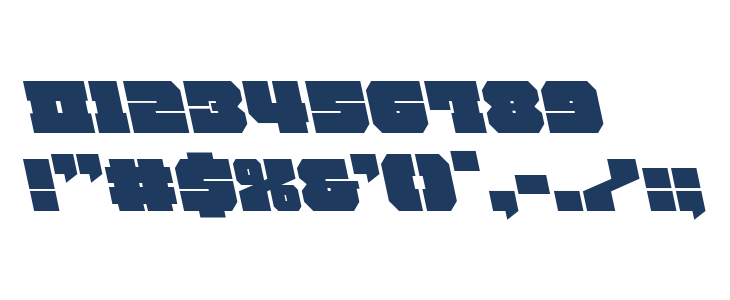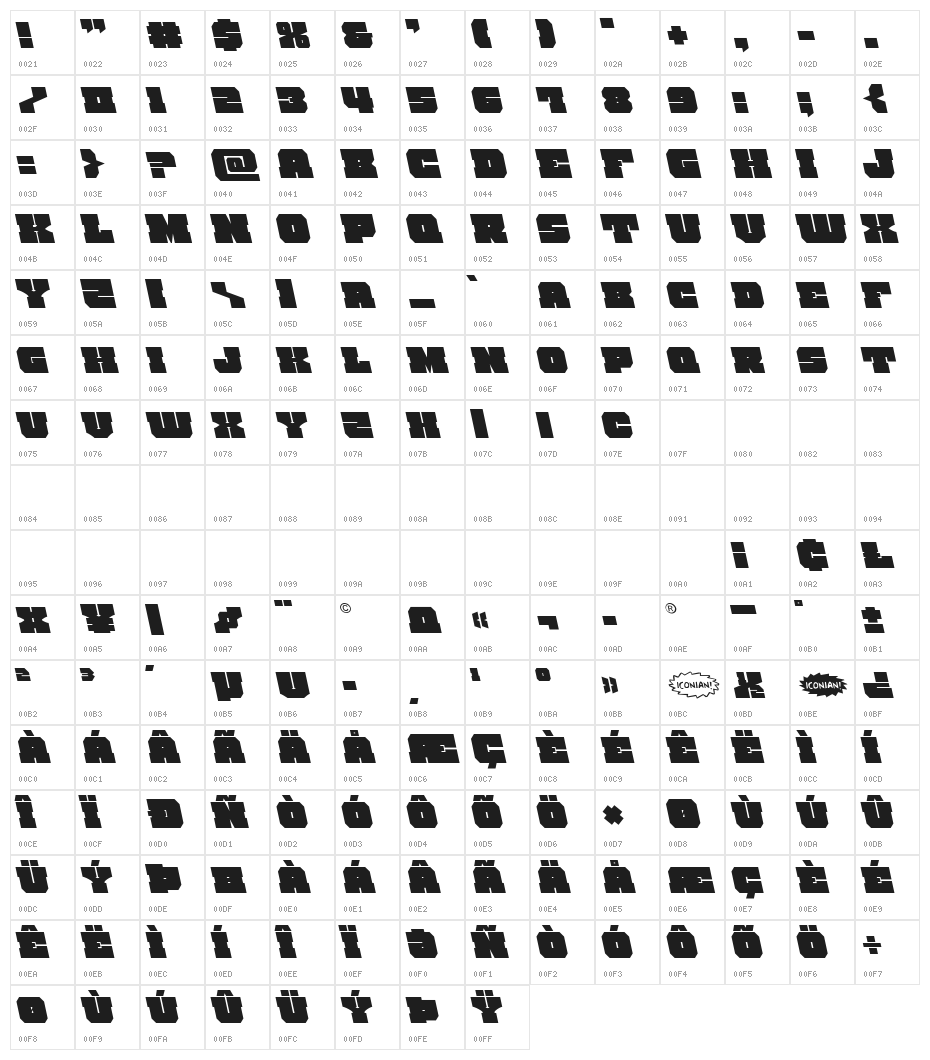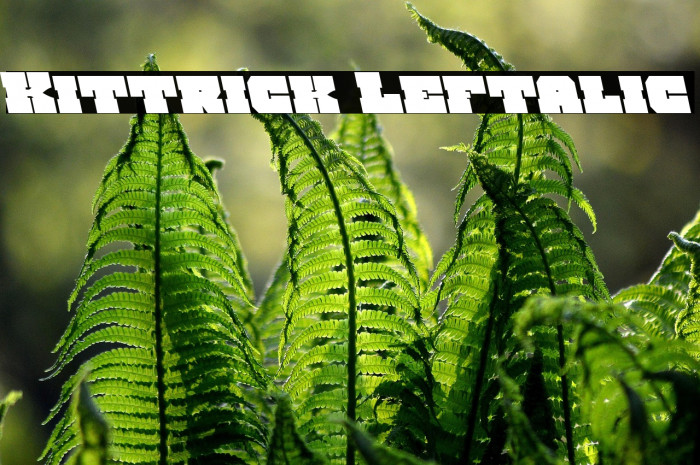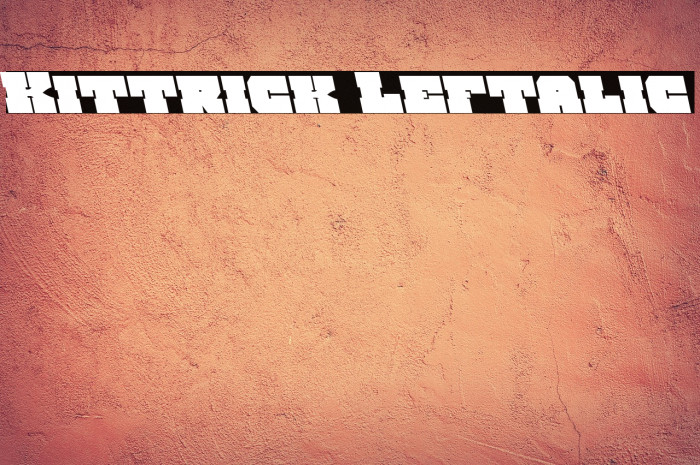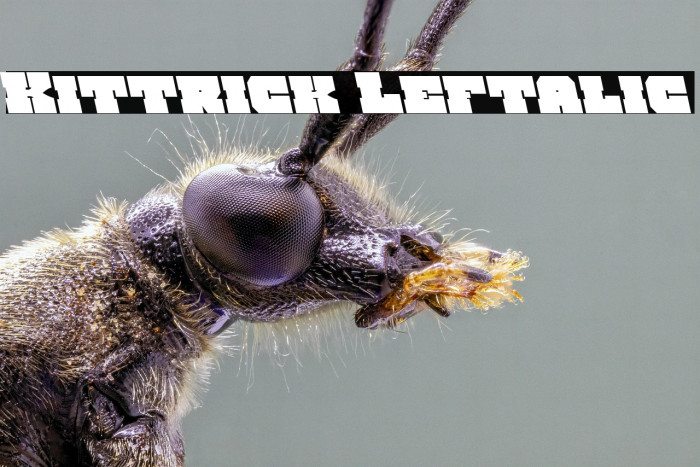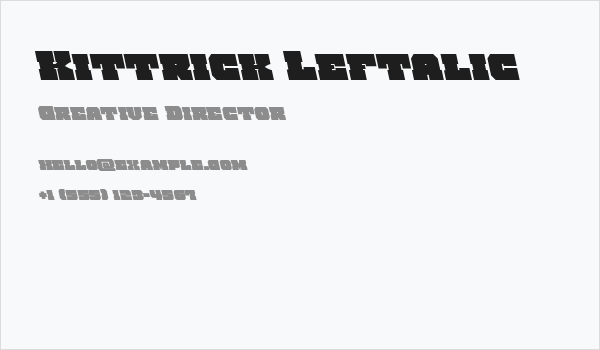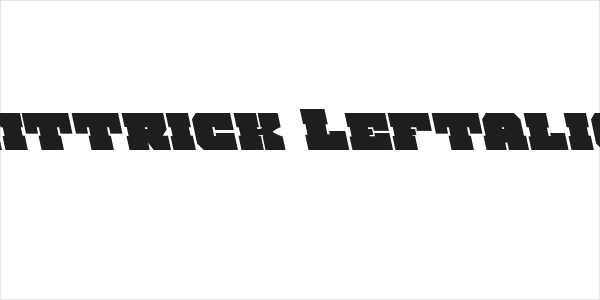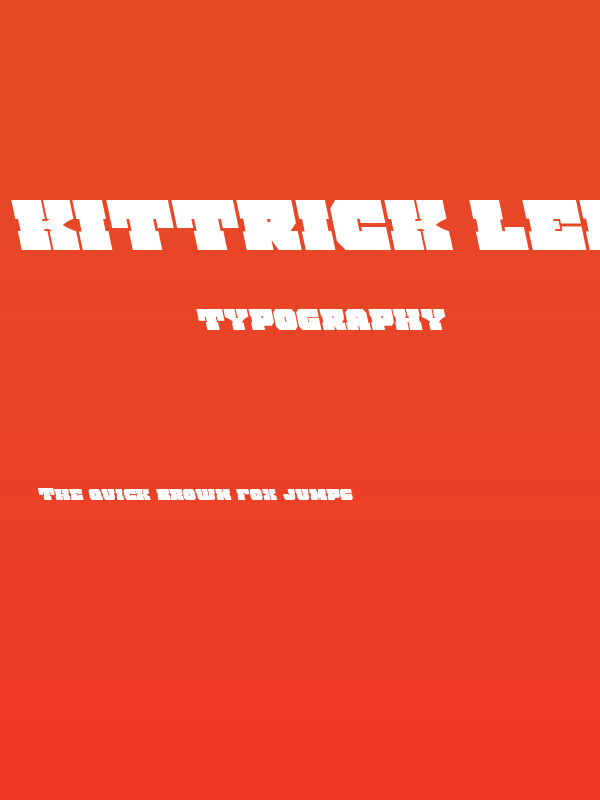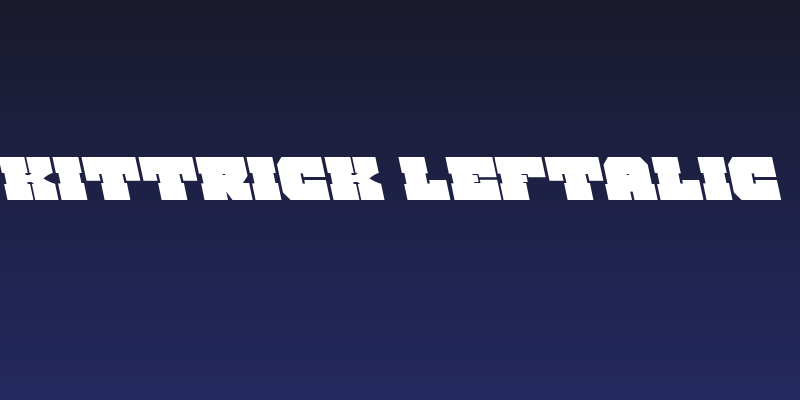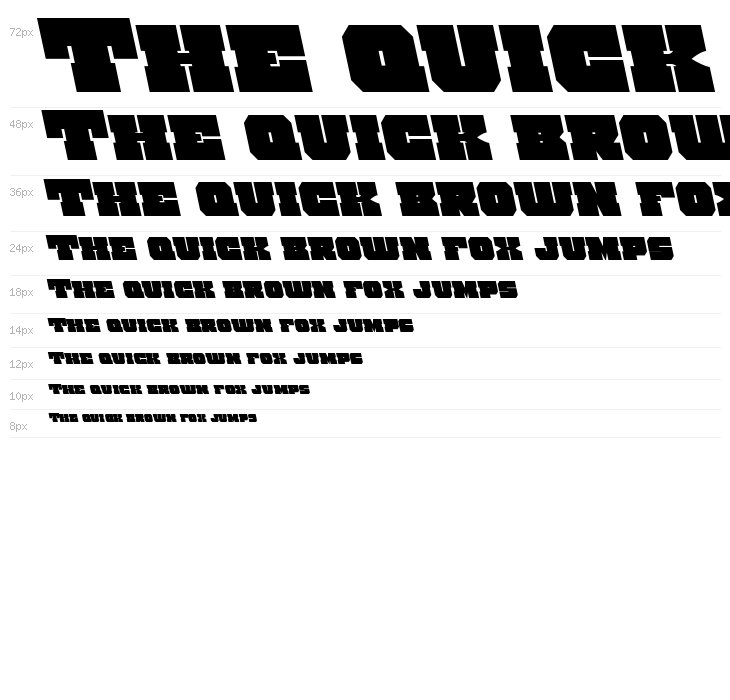
Kittrick Leftalic Font
Kittrick Leftalic Description
This font features bold, angular characters with a strong, geometric presence. Each letter is crafted with sharp edges and a blocky style, giving it a robust and impactful appearance. The uppercase and lowercase letters maintain a consistent design, emphasizing a cohesive look. Numbers and special characters follow the same bold and angular theme, ensuring uniformity across all elements. The font's heavy weight and solid structure make it ideal for attention-grabbing designs.
| Proposed Projects | Ideal for posters, logos, and headlines where a strong, impactful presence is needed. |